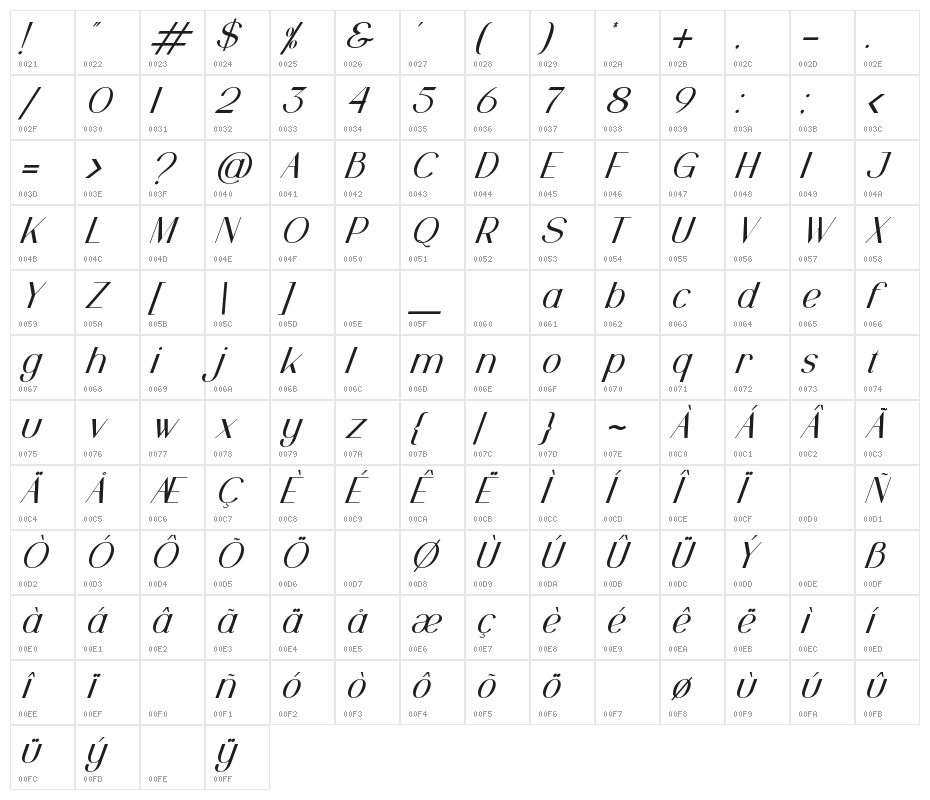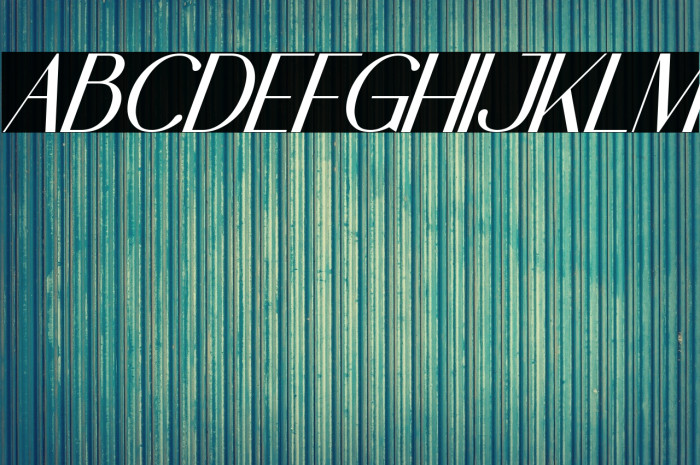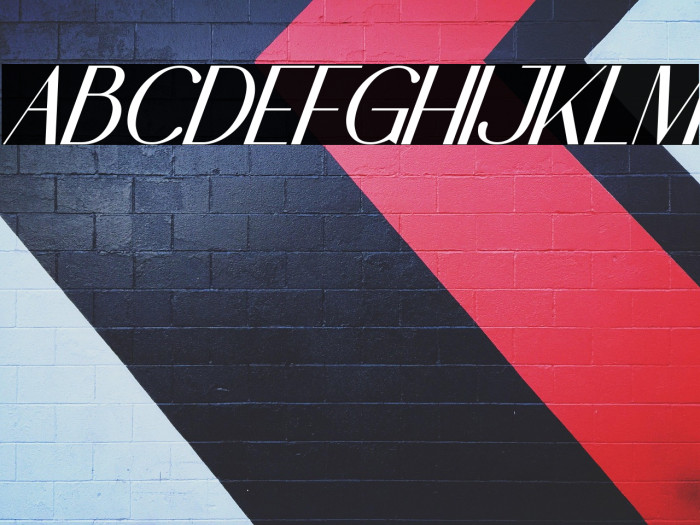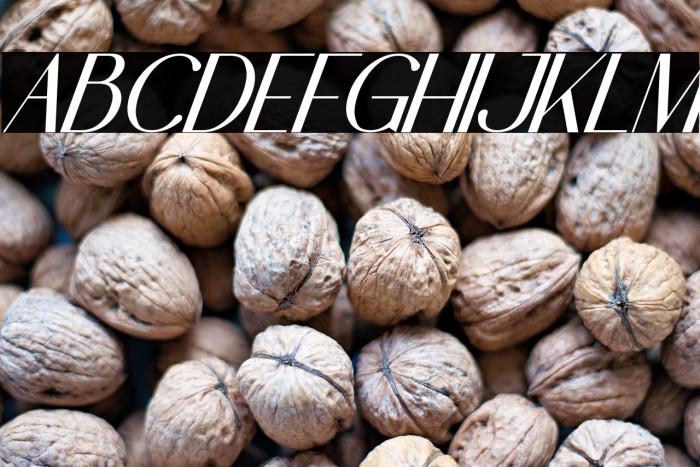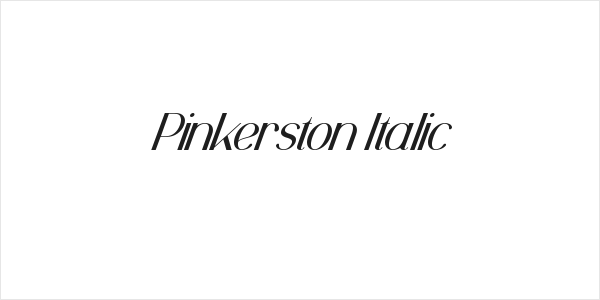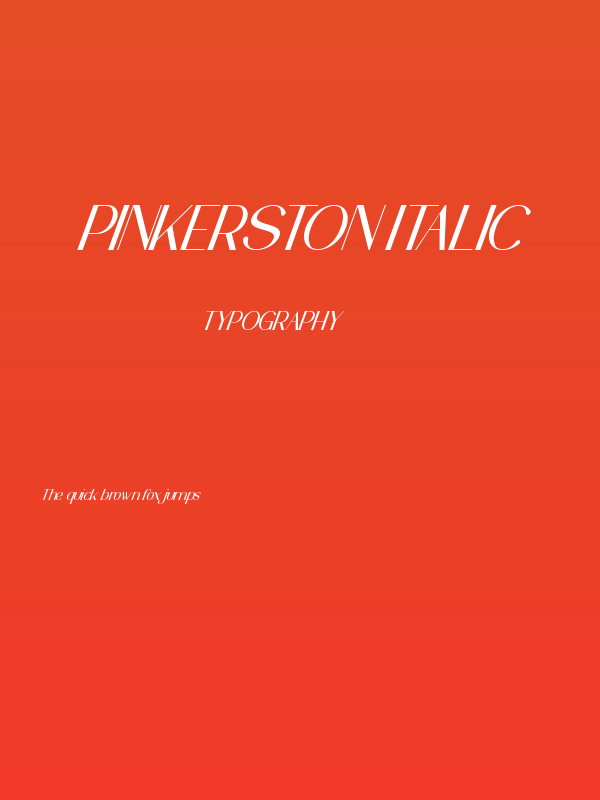
Pinkerston Italic Font
Pinkerston Italic Description
This elegant typeface features a sophisticated italic style with elongated, flowing letterforms that convey a sense of movement and grace. The characters are slightly condensed, enhancing the sleek and refined appearance. The strokes are smooth and consistent, with a medium contrast that adds depth without overwhelming the design. The font maintains a modern aesthetic, suitable for upscale and stylish applications. The numerals and special characters are designed to complement the alphabet, ensuring a cohesive look across all text elements.
| Proposed Projects | Ideal for luxury branding, fashion magazines, elegant invitations, and high-end product packaging. |